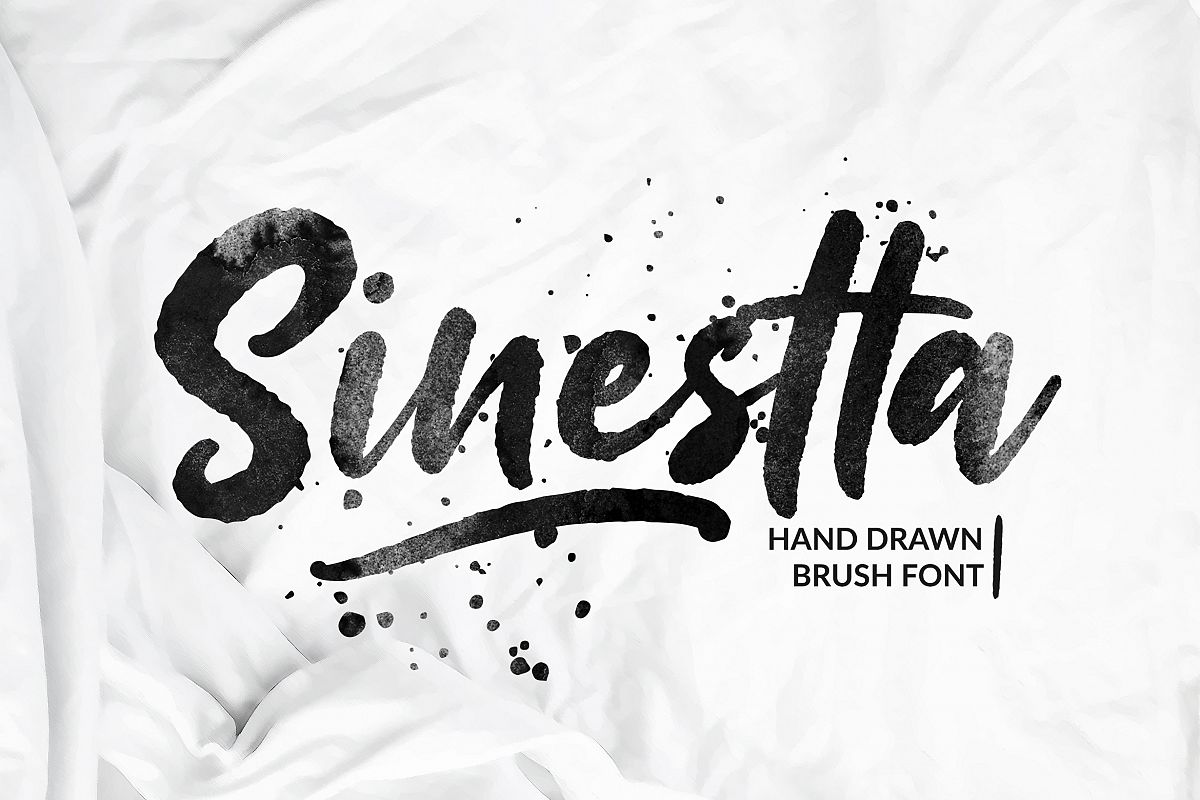
Sinestta Brush Font
Introducing Sinestta Handwritten Brush Font, script with natural dry brush strokes make it beautiful, and the stroke of hand quickly.
Sinestta is perfect for signature, branding, wedding, fashion, photography title, poster, social media, ad banner, book cover, packaging, handwritten quotes, greeting cards and advertising.
With swash and splatter, you can create more creative and make it as if you wrote it yourself.